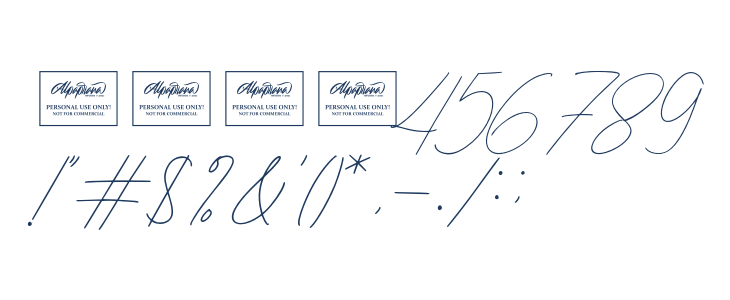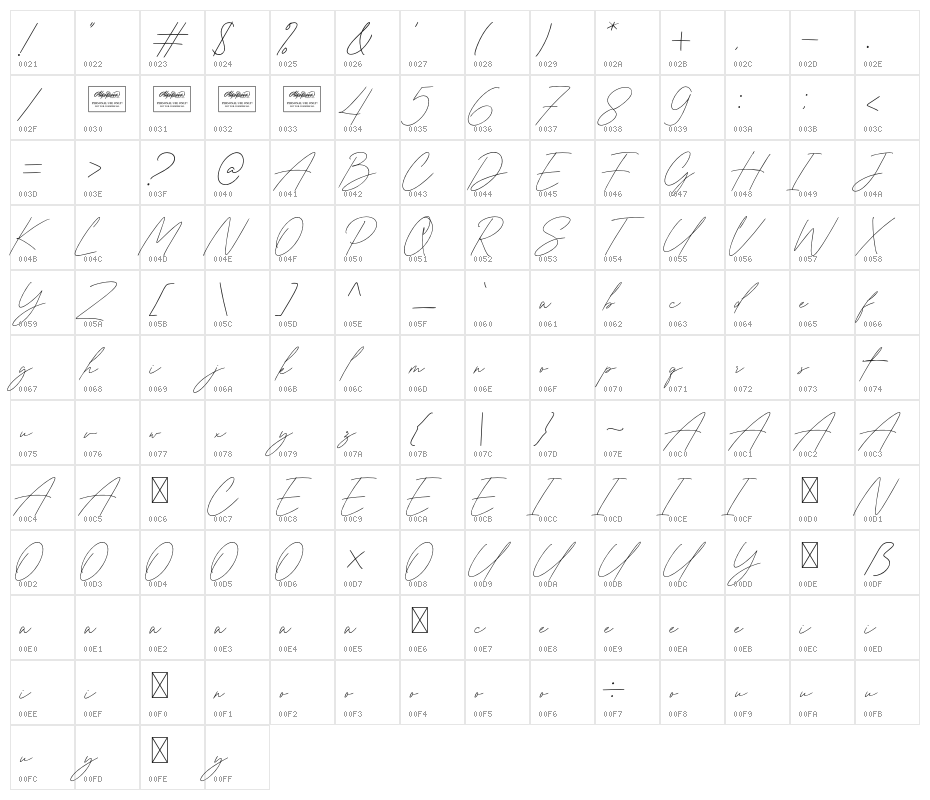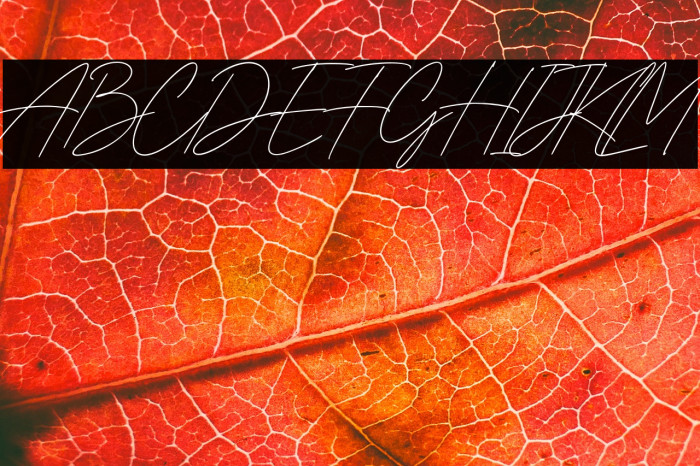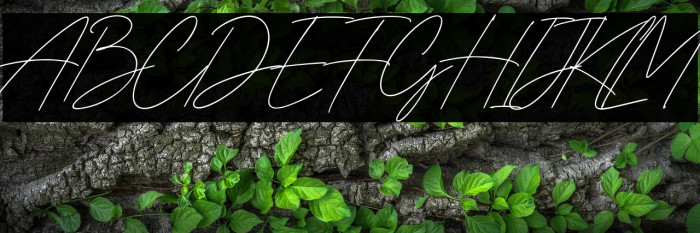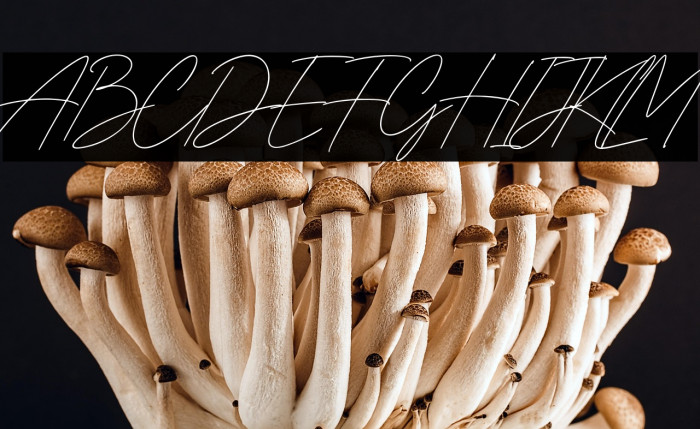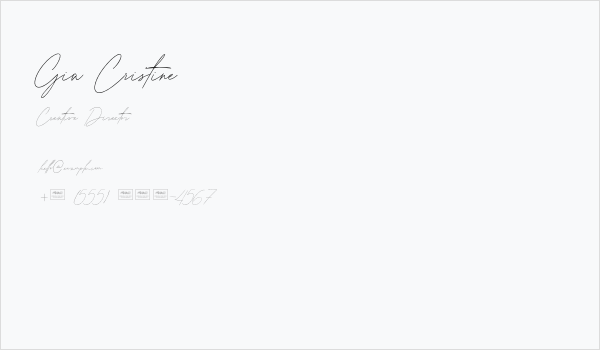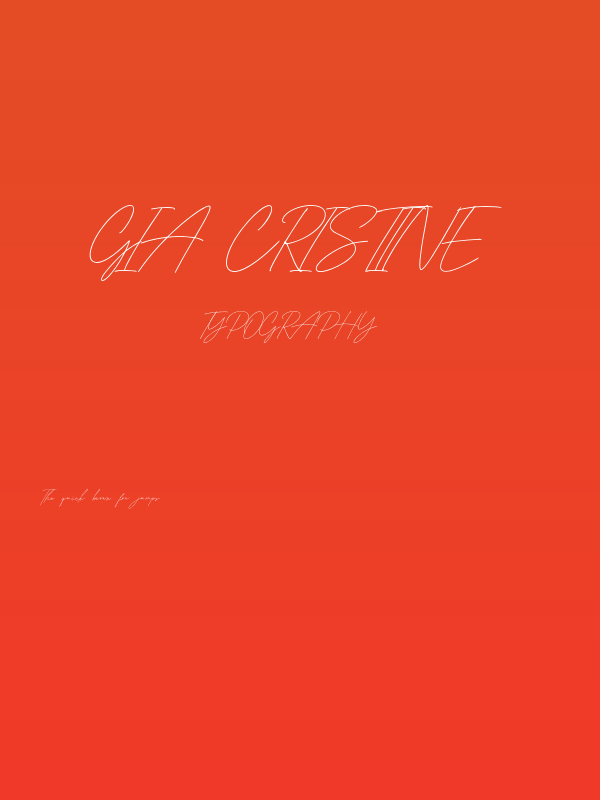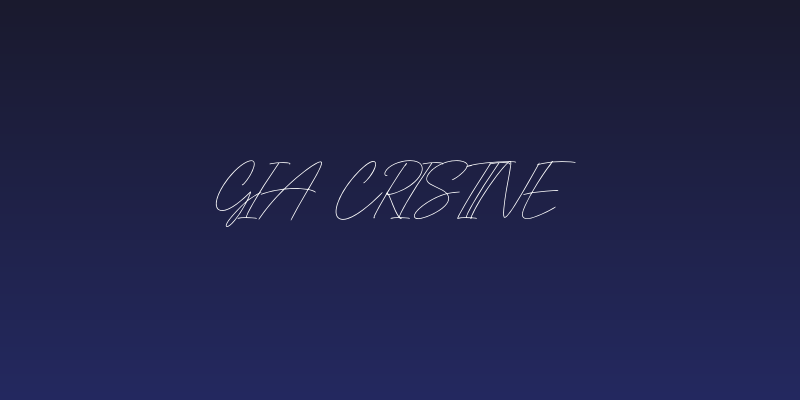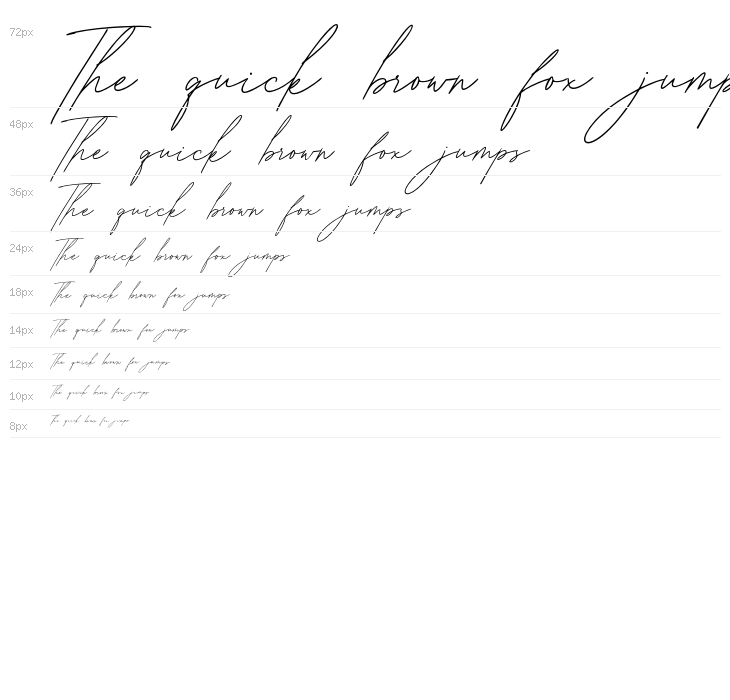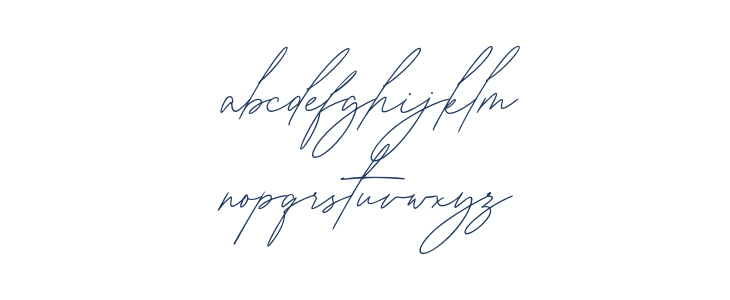
Gia Cristine Font
Gia Cristine Description
This elegant script font features a flowing, handwritten style with a modern touch. The letters are connected, creating a seamless and fluid appearance that mimics natural handwriting. The uppercase letters are tall and slightly slanted, while the lowercase letters maintain a consistent height, adding to the font's readability. The numbers and special characters are designed to complement the overall aesthetic, maintaining the same graceful curves and thin strokes. This font exudes sophistication and charm, making it ideal for projects that require a personal and artistic touch.